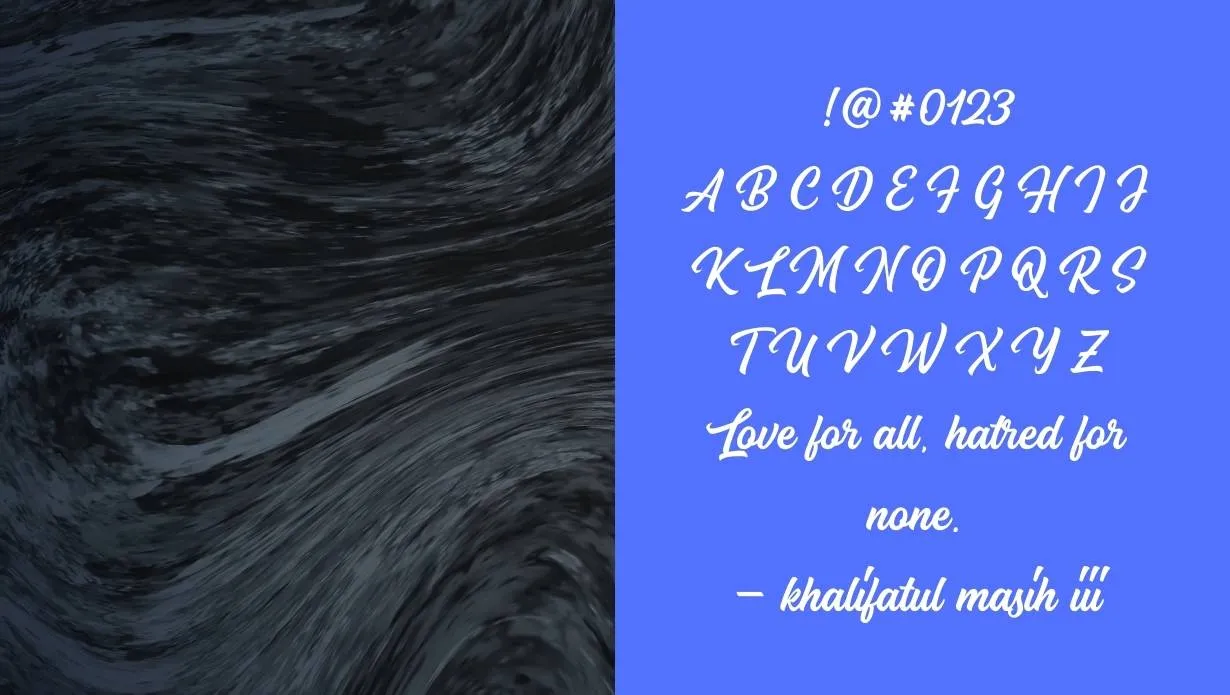
Today, we are consulting on the very famous typeface that is known by the name Magehand Font. This typeface belongs to the Script font family. It was designed and shared by Typia Nesia. It is available for personal and commercial use.
Magehand Font is a beautiful Script typeface with a touch of elegance.
It has modern calligraphy feel to it and would be perfect for branding, invitations, quotes, watermarks, headlines, and much more. You can also use its similar to another shabby font for various designs.